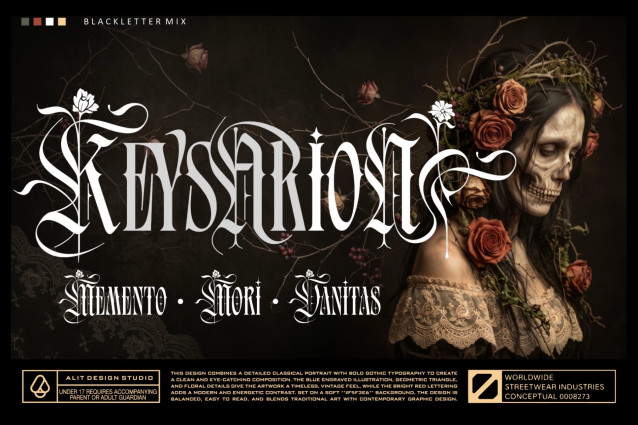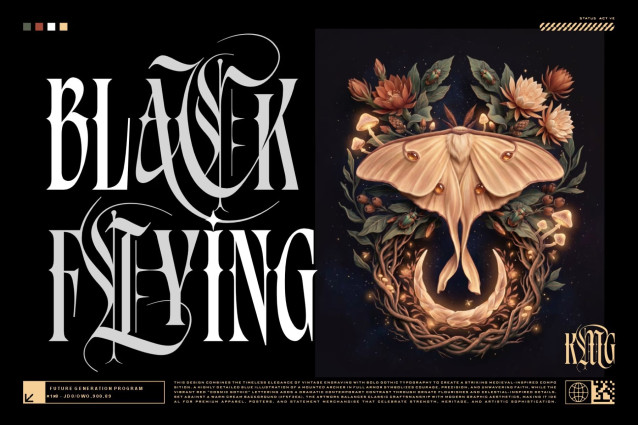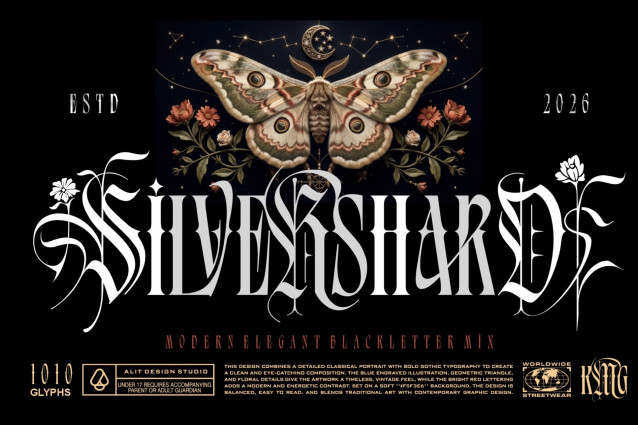
Silver Shard – Modern Elegant Blackletter Typeface
Embrace the allure of the mystic and the elegance of the dark with Silver Shard, a premium modern blackletter typeface designed to make a striking statement. Combining classic gothic typography with sharp, ornate, and contemporary details, Silver Shard offers a timeless vintage feel balanced with a powerful, energetic contrast.
Whether you are designing for alternative streetwear, esoteric and occult branding, tattoo studios, dark fantasy book covers, luxury liquor packaging, or high-end merchandise, this typeface delivers a bold, enigmatic, and luxurious visual identity.
What truly sets Silver Shard apart is its massive collection of 1010 glyphs. It is fully equipped with an extraordinary range of double and triple ligatures, alongside 8 Stylistic Sets (SS01 – SS08). This level of versatility allows you to weave letters together seamlessly, creating custom, hand-drawn typography effects that look entirely unique to your project.